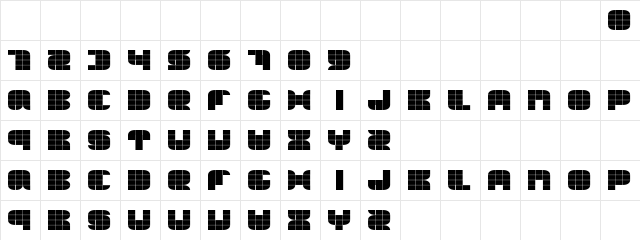
thesummeredition Regular Font Preview
thesummeredition Regular
Design Context for thesummeredition Typeface
thesummeredition is a composed and adaptable typeface that performs quietly and consistently across a wide range of design contexts.